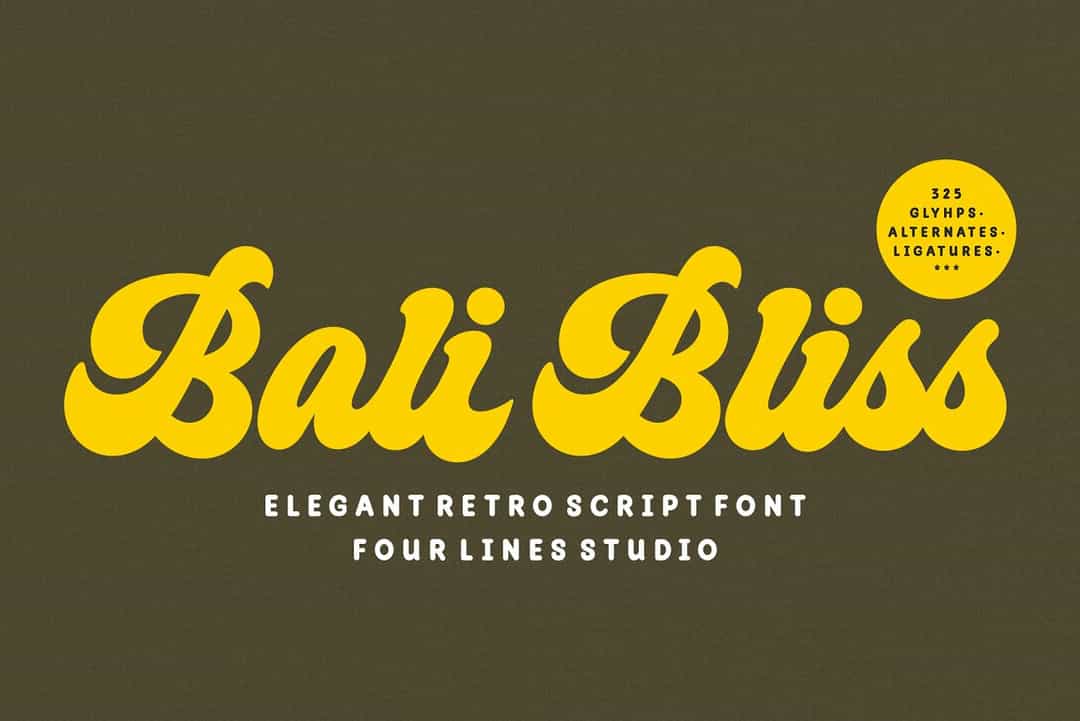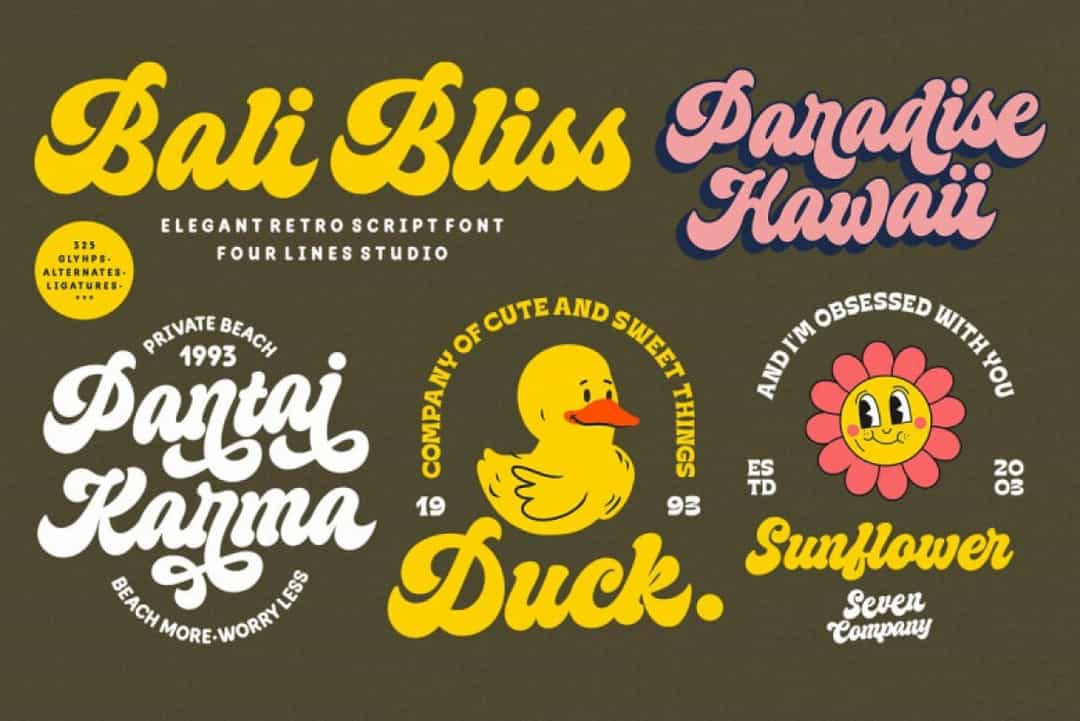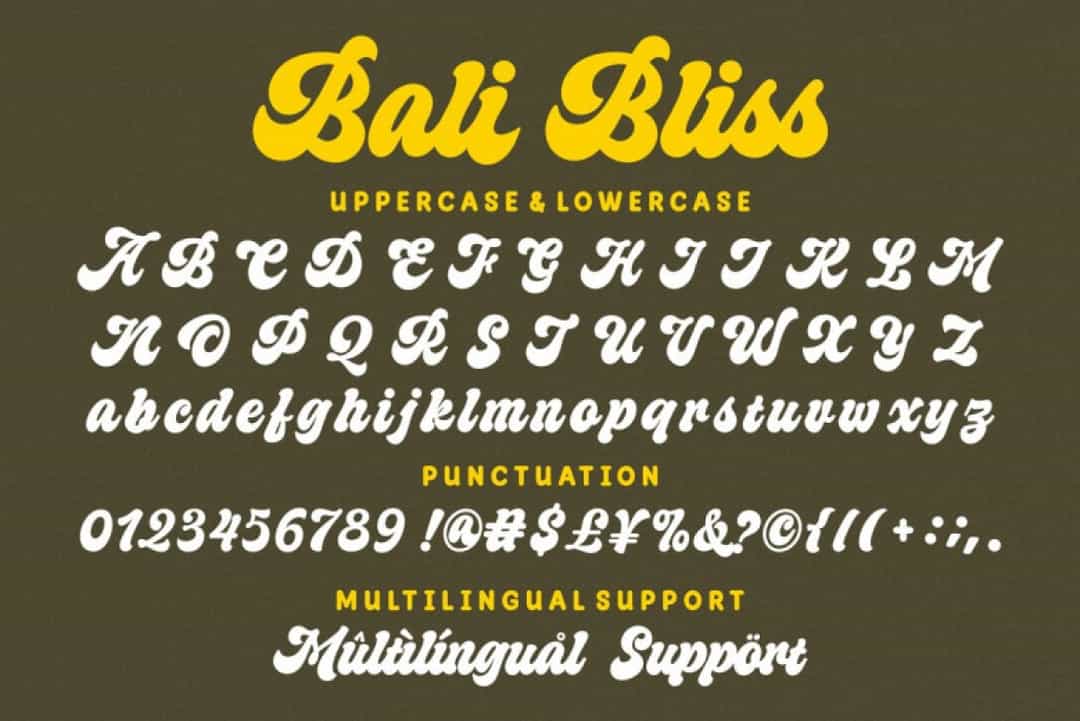
Discover a world of vintage glamour and timeless elegance with “Bali Bliss” font! “Bali Bliss” is an eye-catching retro script font, transporting you back in time. The retro aesthetic allows your designs to tap into collective memories while remaining stunningly accessible for all audiences.